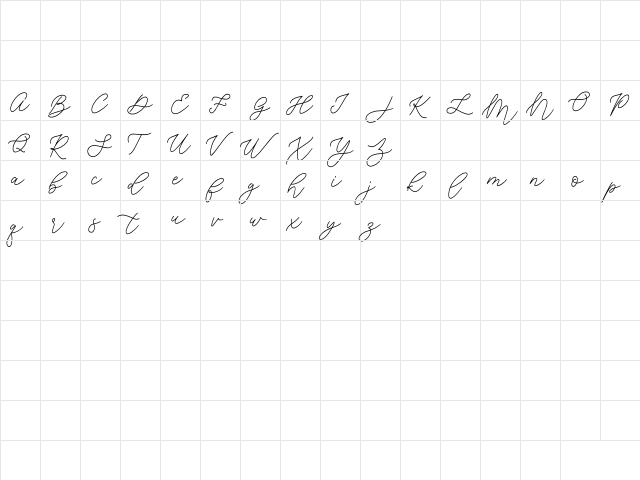
Jean Jingga Regular
| Designer | Aldedesign 2018 |
Design Context for Jean Jingga Typeface
Jean Jingga is a composed and adaptable typeface that performs quietly and consistently across a wide range of design contexts.
Pro Tip: Pair Jean Jingga with a font of contrasting weight or personality to build a more expressive typographic hierarchy.